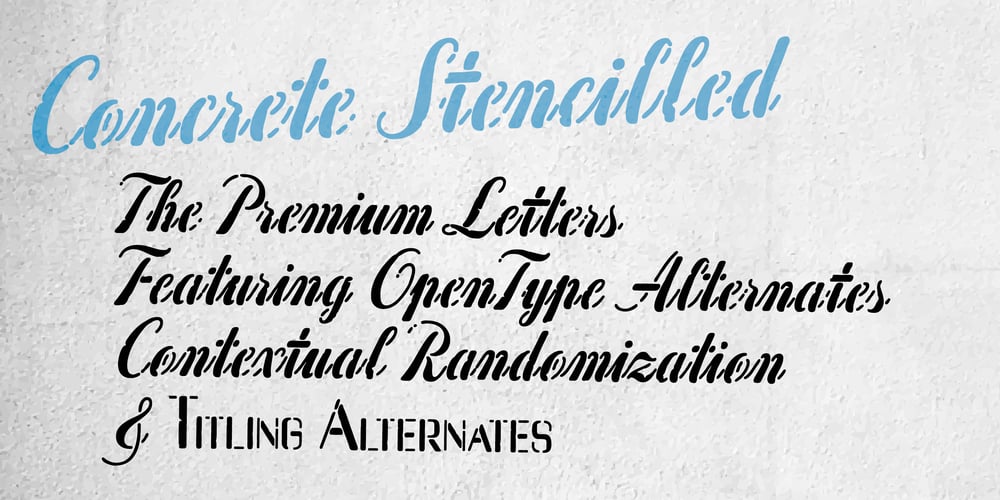
Concrete Stencil Font Family was designed by Ryoichi Tsunekawa and published by Dharma Type. Concrete Stencil contains 2 styles and family package options. No need to explain. This is the best stencil script. Consists of two styles, Clean and Stenciled effected. Including OpenType titling alternates. Please check the instruction in the Galley tab.